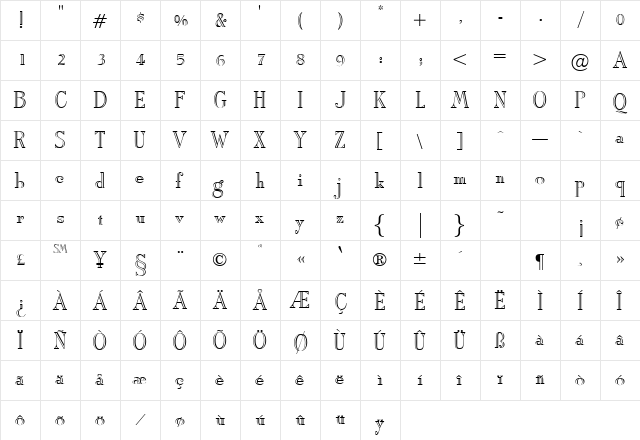
AmphoraOpenface Regular Font Preview
AmphoraOpenface Regular
Design Context for AmphoraOpenface Typeface
AmphoraOpenface offers clean, dependable letterforms without strong stylistic allegiance, making it a practical choice for designers who need flexibility.